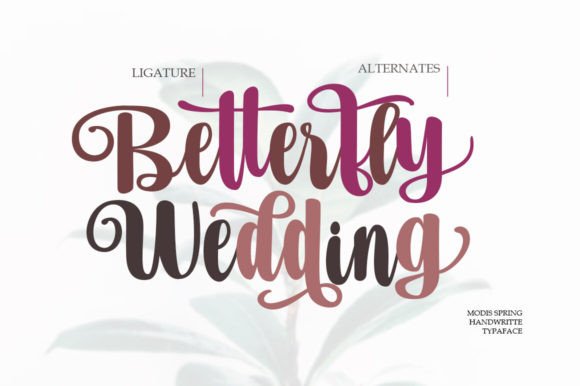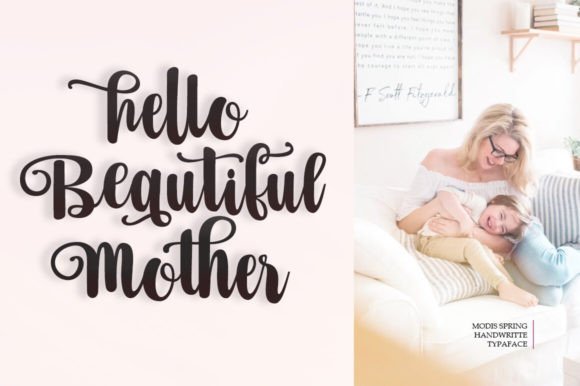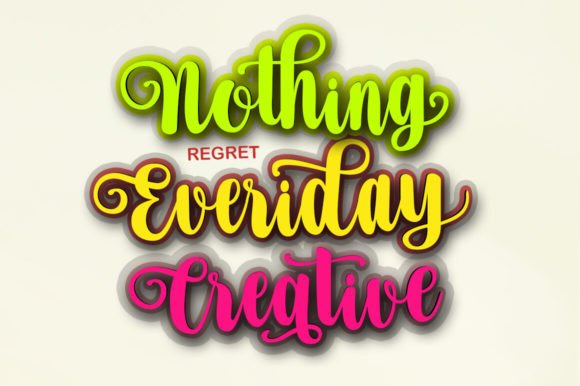
Introduction to Modis Spring Font
Have you ever been working on a creative project, pouring your heart and soul into every detail, only to realize that the perfect font is missing? For designers, the right font can make all the difference between a good design and a great one. That’s why we’re excited to introduce you to the stunning Modis Spring Font, a beautiful and elegant handwritten font that’s sure to elevate your next design project.
With its flowing, calligraphic influence and contemporary feel, the Modis Spring Font is the perfect addition to any design resource. And the best part? It’s free to download and use, making it a valuable asset for designers of all levels. Whether you’re working on a high-quality brochure or a simple social media graphic, the Modis Spring Font is sure to add a touch of sophistication and style.
Key Features of Modis Spring Font
- High-quality design with a unique, modern aesthetic, making it perfect for creative projects that require a fresh and stylish look.
- Designed with a clean and minimalist style, making it an ideal choice for projects that require a simple yet effective design.
- Perfect for use in logos, icons, graphics, and other design elements, thanks to its versatility and adaptability.
Honest Review: Modis Spring Font
I recently came across the Modis Spring Font, and I must say it’s a great addition to any designer’s arsenal. This font is perfect for creative projects that require a touch of elegance and sophistication.
One of the things I love about the Modis Spring Font is its high quality. The lines are crisp, the typography is clean, and the font is incredibly versatile. Whether you’re working on a logo, a brochure, or a website, this font is sure to impress.
- Beautiful typography that’s sure to elevate any design
Of course, no font is perfect, and the Modis Spring Font has a few limitations:
- It’s not ideal for bold or dramatic designs, as it can come across as too elegant
- It’s not available in as many weights as some other fonts, which can limit its versatility
Overall, I’m thoroughly impressed with the Modis Spring Font. It’s a great addition to any designer’s toolbox, and I highly recommend it for any creative project. With its high-quality design and transparent background, it’s sure to be a hit with designers and clients alike.
Common Use Cases for Modis Spring Font
Use Modis Spring Font for creative projects such as:
– Branding and logo design
– Infographics and data visualization
– Social media graphics and posts
– Business cards and marketing materials
– Web design and development
Alternatives to Modis Spring Font
Lato is a high-quality, modern sans-serif font perfect for creative projects that require a clean and minimalist design. It’s available for free download and comes in a range of weights and styles. Lato is ideal for use in logos, headings, and body text. It compares to Modis Spring Font in its simplicity and versatility, but Lato has a more geometric and technical feel.
Does the Modis Spring Font have a transparent background?
No, the Modis Spring Font does not have a transparent background. However, it is a high-quality font with a crisp and clean design that will work well with most design backgrounds. If you need a font with a transparent background, you may want to consider our other design resources.